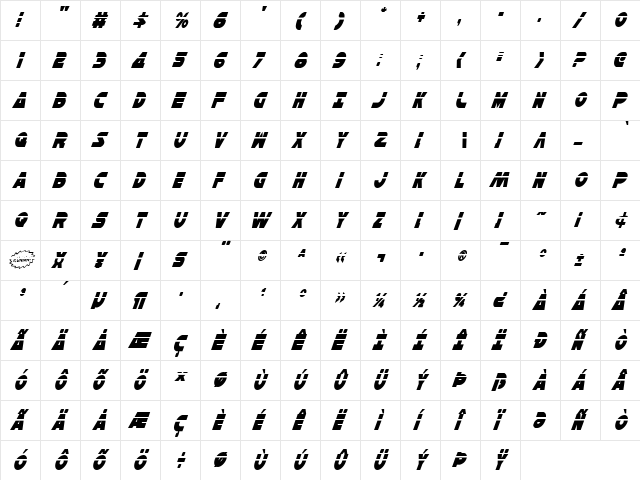
Han Solo Cond Laser Italic Font Preview
Design Context for Han Solo Cond Laser Italic Typeface
Han Solo Cond Laser Italic is a composed and adaptable typeface that performs quietly and consistently across a wide range of design contexts. The slanted form adds forward momentum and visual energy. Its narrow stance lets it pack a punch even in space-constrained designs.